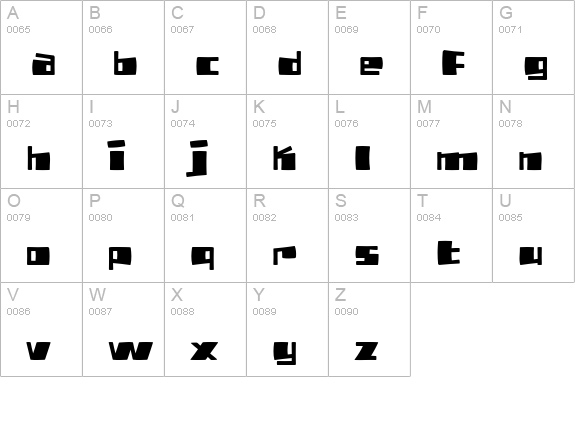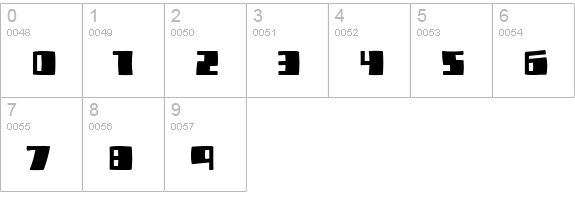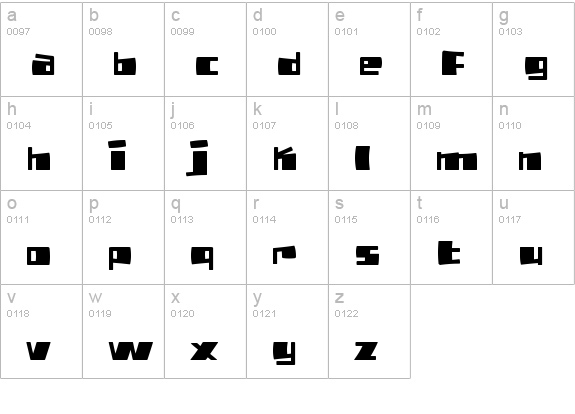
PizzaBot Font Details
Introducing PizzaBot font, a fun and playful typeface perfect for adding a touch of whimsy to your designs. This unique font features quirky shapes and a hand-drawn feel that will make your text stand out. PizzaBot font is versatile and suitable for a wide range of creative projects, from branding to social media graphics. The best part? PizzaBot font is completely free to download at FontsMarket.com! Take your designs to the next level with this delightful typeface that will bring a smile to your audience's faces. Download PizzaBot font today and let your creativity soar.